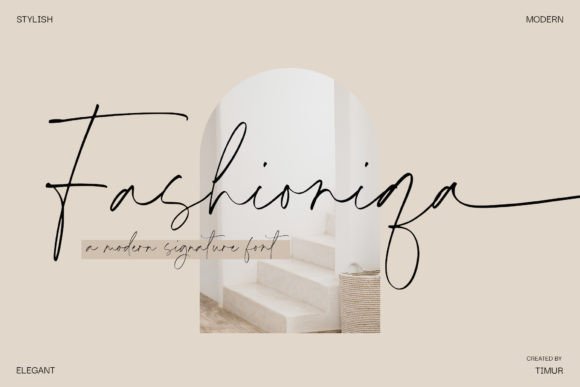
Introducing Fashioniqa Font, the epitome of modernity and romance, meticulously crafted by Timur Type. This enchanting script font is a visual masterpiece, designed to captivate and inspire.
Step into a world of elegance and sophistication with Fashioniqa, the perfect font for your creative pursuits. Whether you're a designer seeking to elevate your branding project or a bride-to-be searching for a touch of magic for your wedding invitations, Fashioniqa is your perfect companion.
With its sweeping curves and delicate strokes, Fashioniqa adds a touch of timeless beauty to any design. Its versatility knows no bounds, effortlessly adapting to a wide range of projects, from product packaging to social media posts.
Immerse yourself in the world of Fashioniqa and experience the joy of self-expression. Let your words dance across the page, infused with grace and charm. Fashioniqa is more than just a font; it's an invitation to let your creativity soar.
Unleash the power of Fashioniqa and watch your designs transform into works of art. Its carefully crafted characters will add a touch of magic to every project, leaving a lasting impression on your audience.
Don't settle for ordinary fonts. Embrace the allure of Fashioniqa and embark on a creative journey like never before. Let your imagination run wild as you explore the endless possibilities that await.
Fashioniqa is more than just a font; it's an experience. It's a chance to express yourself in a way that's both captivating and unforgettable. So why wait? Dive into the world of Fashioniqa and let your creativity flourish.